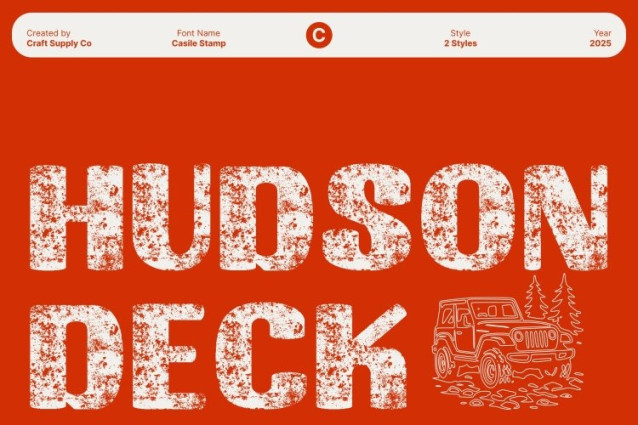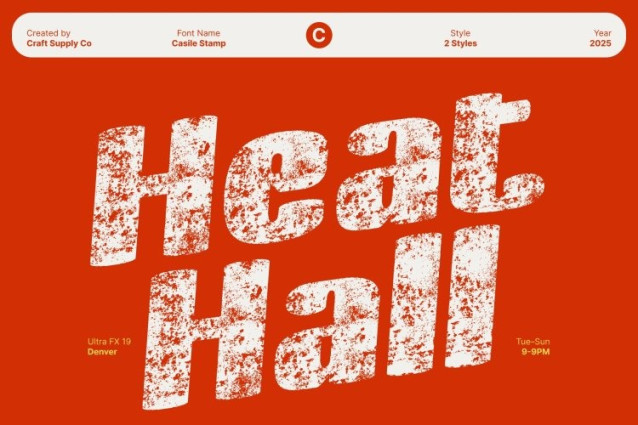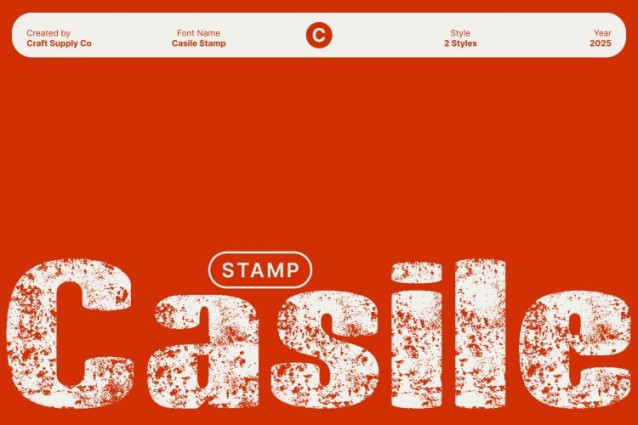
Casile Stamp Font
Casile Stamp Font This is a bold sans serif display font designed to capture attention from the very first glance. Its striking modern shapes create a strong visual structure, allowing each character to stand with confidence and clarity. The sharp proportions and clean lines give the font a contemporary edge, making it perfect for projects that rely on bold messaging and high-impact visuals.
Stamp Texture for Artistic Personality
What elevates this font beyond traditional bold fonts is its distinctive stamp effect. This textured finish adds depth, character, and a handcrafted spirit to the otherwise modern and structured letterforms. The artistic texture introduces visual rhythm and personality, making each letter feel alive and expressive.
Perfect for Headlines, Branding, and Posters
This font excels in display applications where visibility and personality matter most. Whether used for headline treatments, branding identities, event posters, or promotional graphics, the font ensures both readability and stylistic impact. Its bold structure commands attention, while the stamped texture creates a memorable, visually engaging experience.
A Contemporary, Lively, and Expressive Display Font
Blending strong modern shapes with artistic texture, this font delivers a fresh, lively, and expressive look that stands out in any creative project. It strikes a perfect balance between precision and spontaneity, offering the versatility needed for dynamic and contemporary design work.